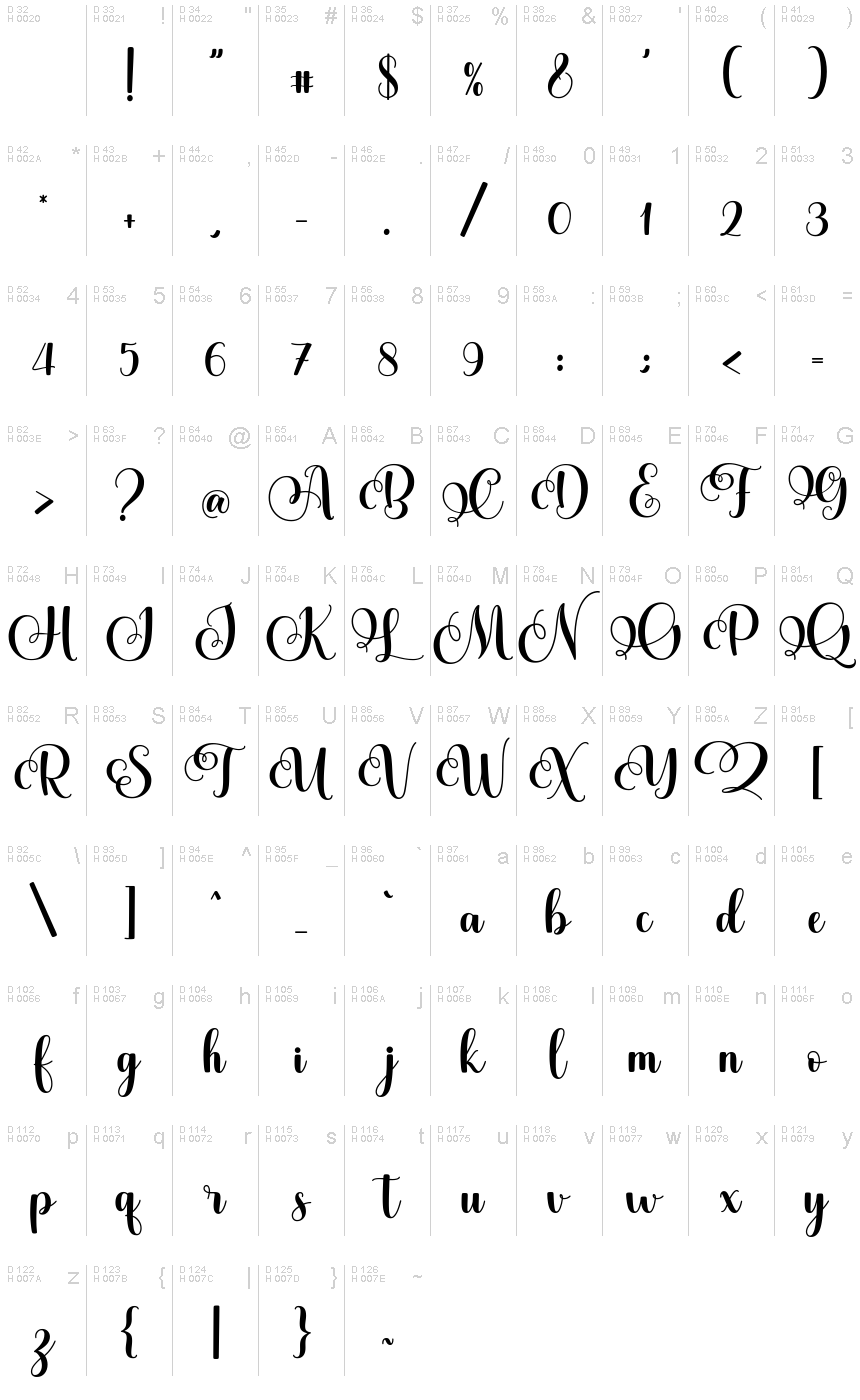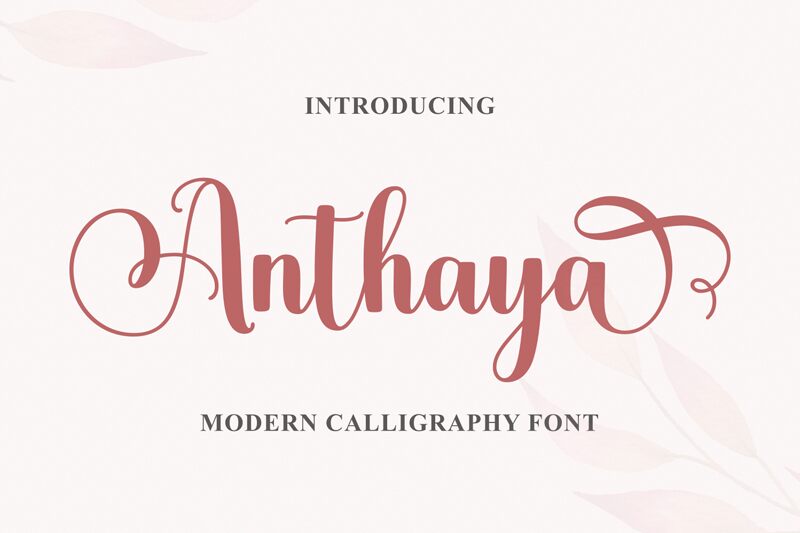
Anthaya, a captivating calligraphic font created by Makashi / MaqsumKS, exudes elegance and grace with its sweeping strokes and delicate flourishes. This distinctive typeface seamlessly blends traditional calligraphic elements with a modern aesthetic, evoking a sense of timeless sophistication. The intricate ligatures and harmonious letter connections lend Anthaya a fluid, harmonious flow, making it a visually striking choice for a variety of design applications.
Anthaya's versatility shines through its adaptability to diverse design contexts. Whether crafting elegant wedding invitations, crafting captivating editorial layouts, or adding a touch of refinement to branding and packaging, this font's unique characteristics make it a versatile tool for designers seeking to elevate their projects with a touch of calligraphic flair.